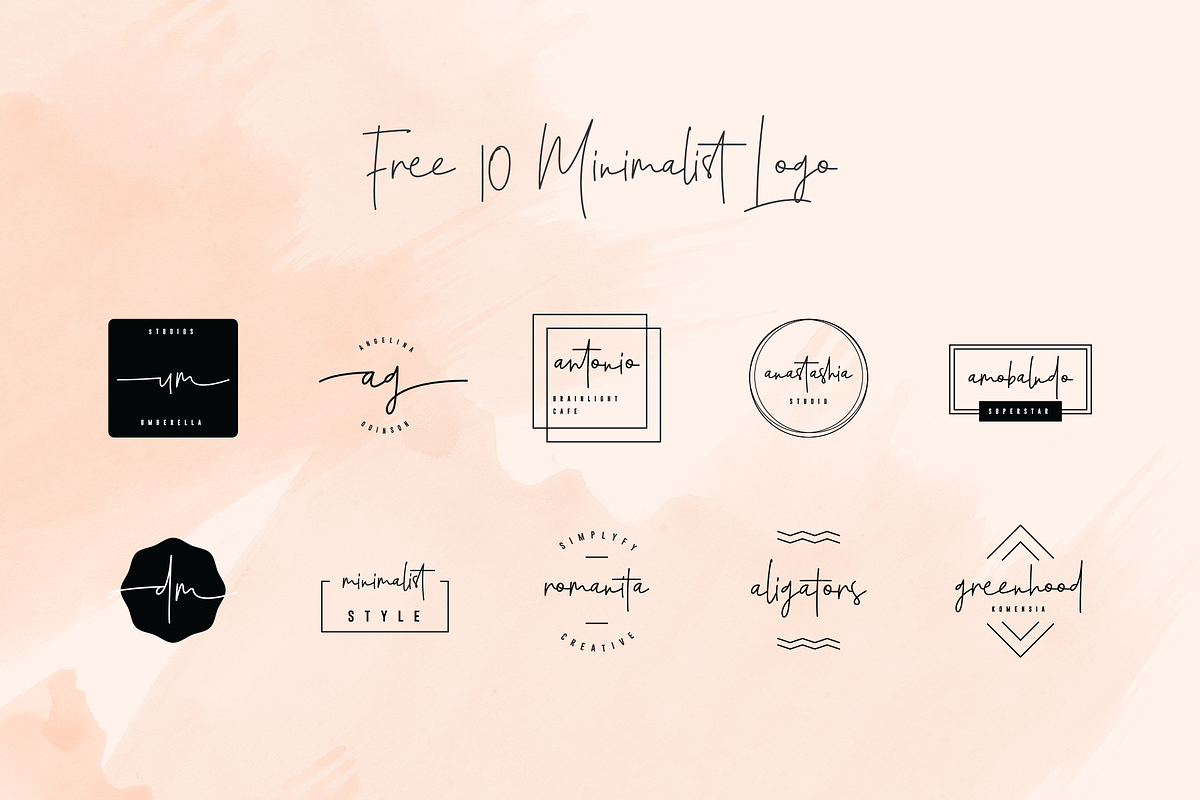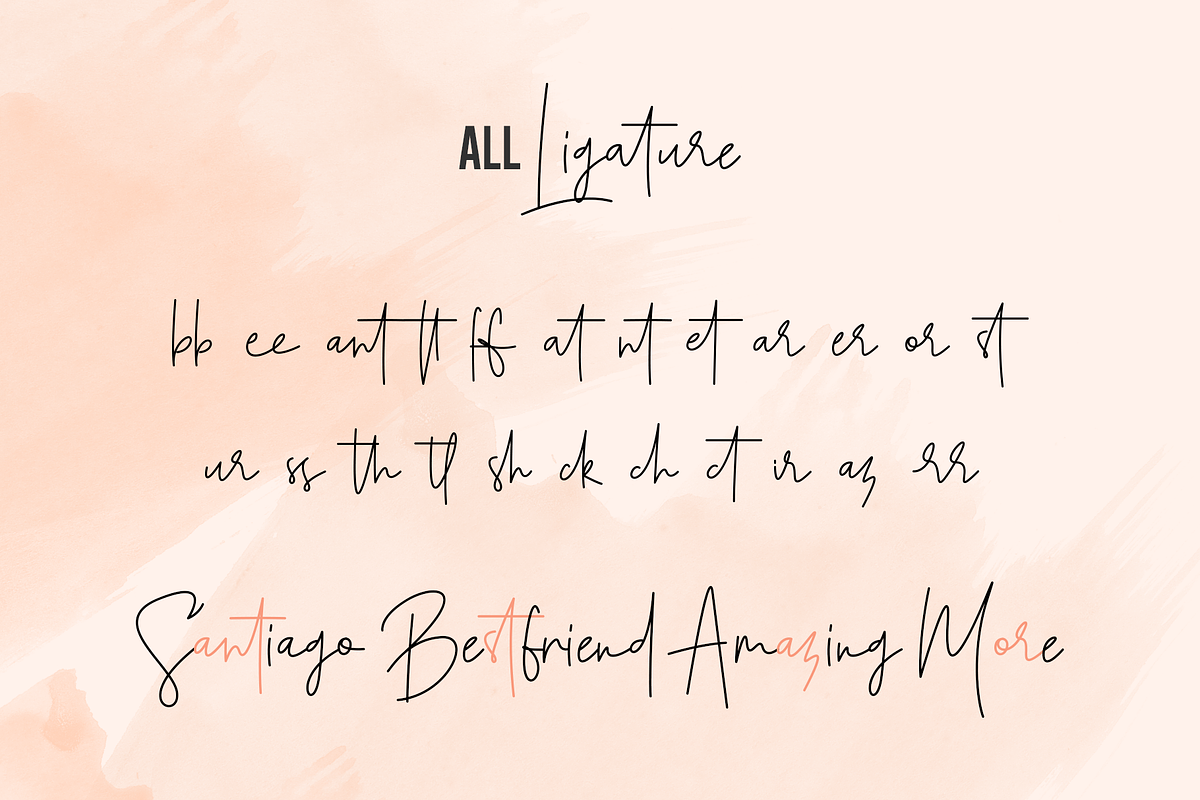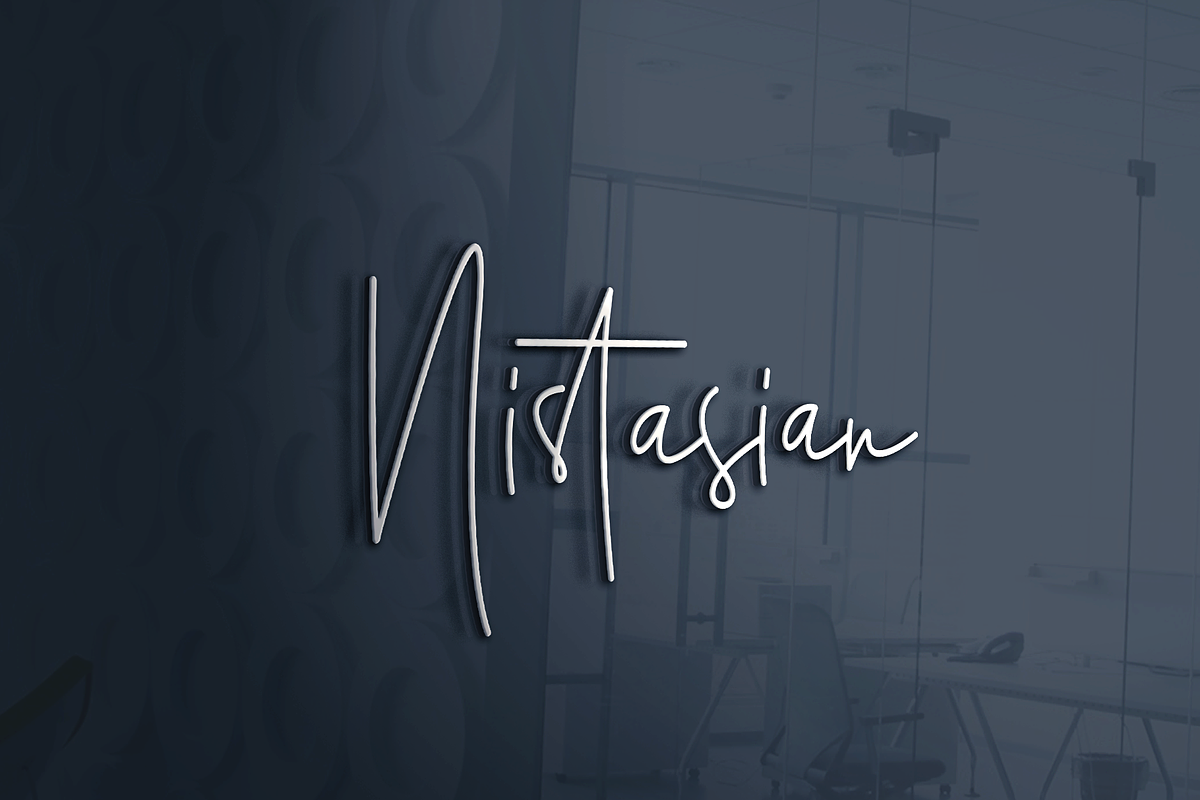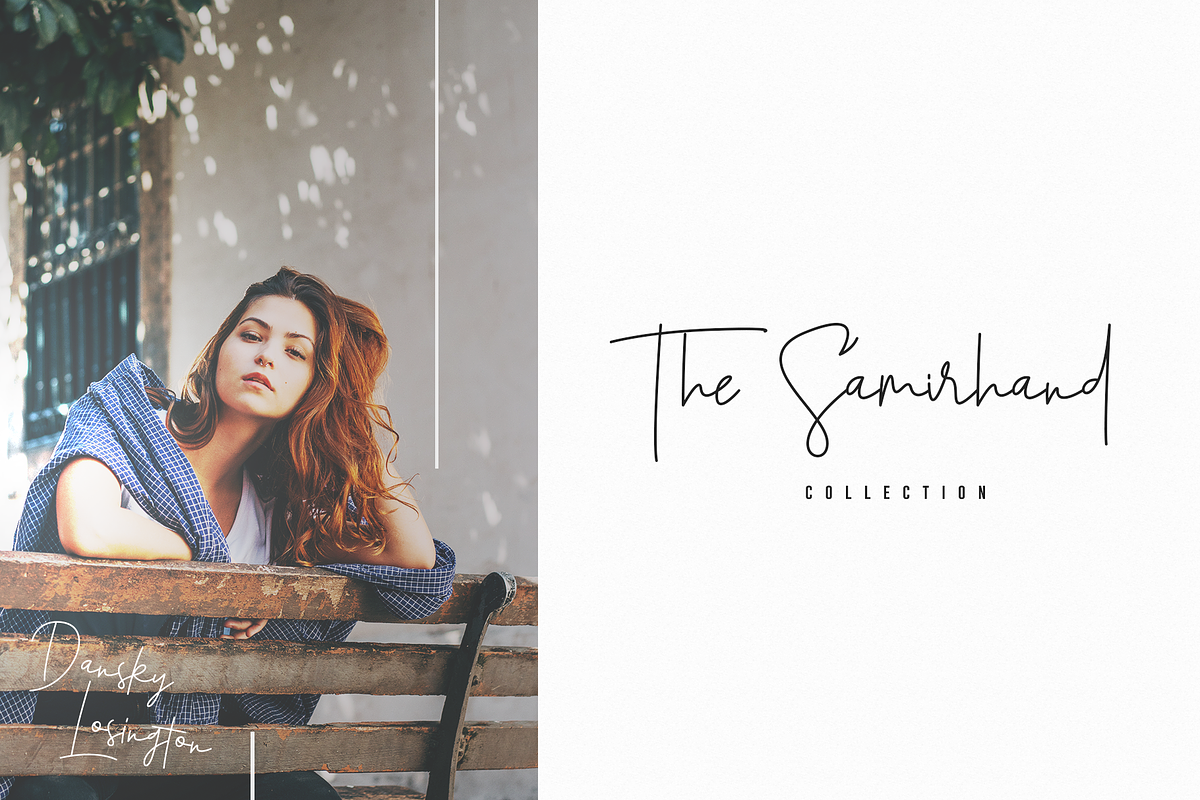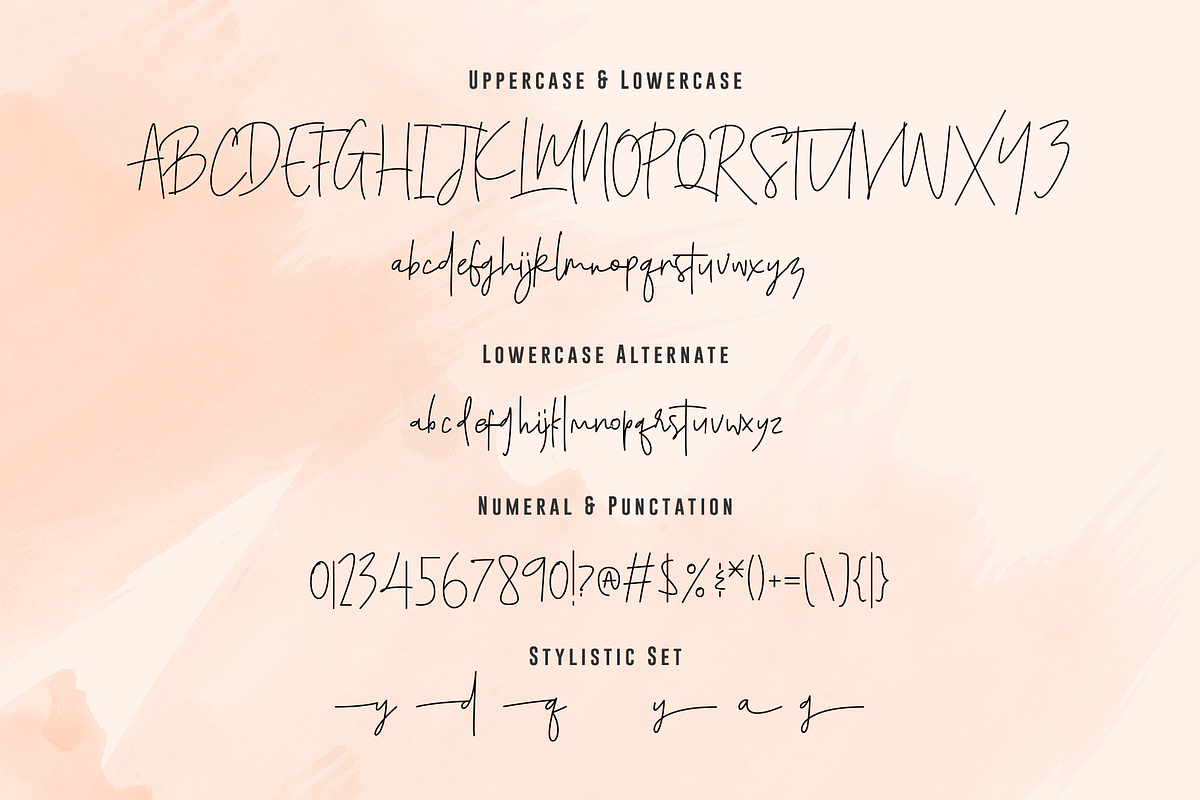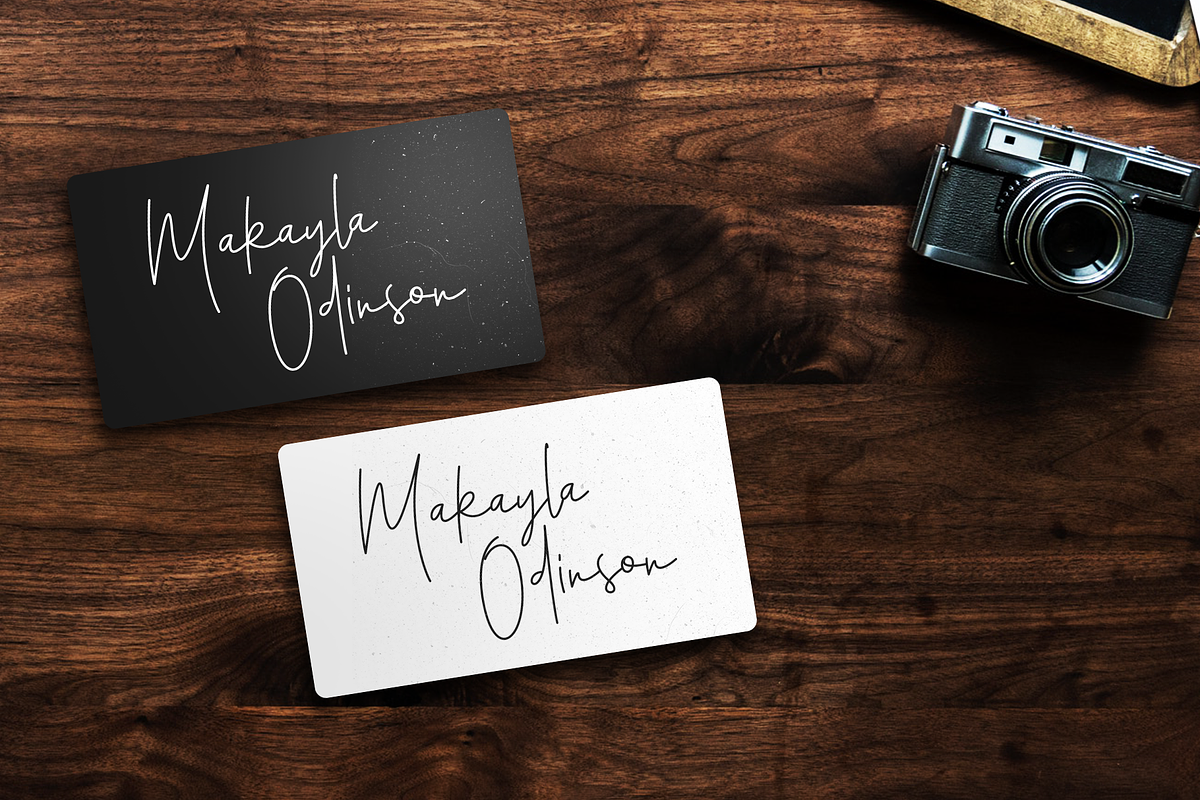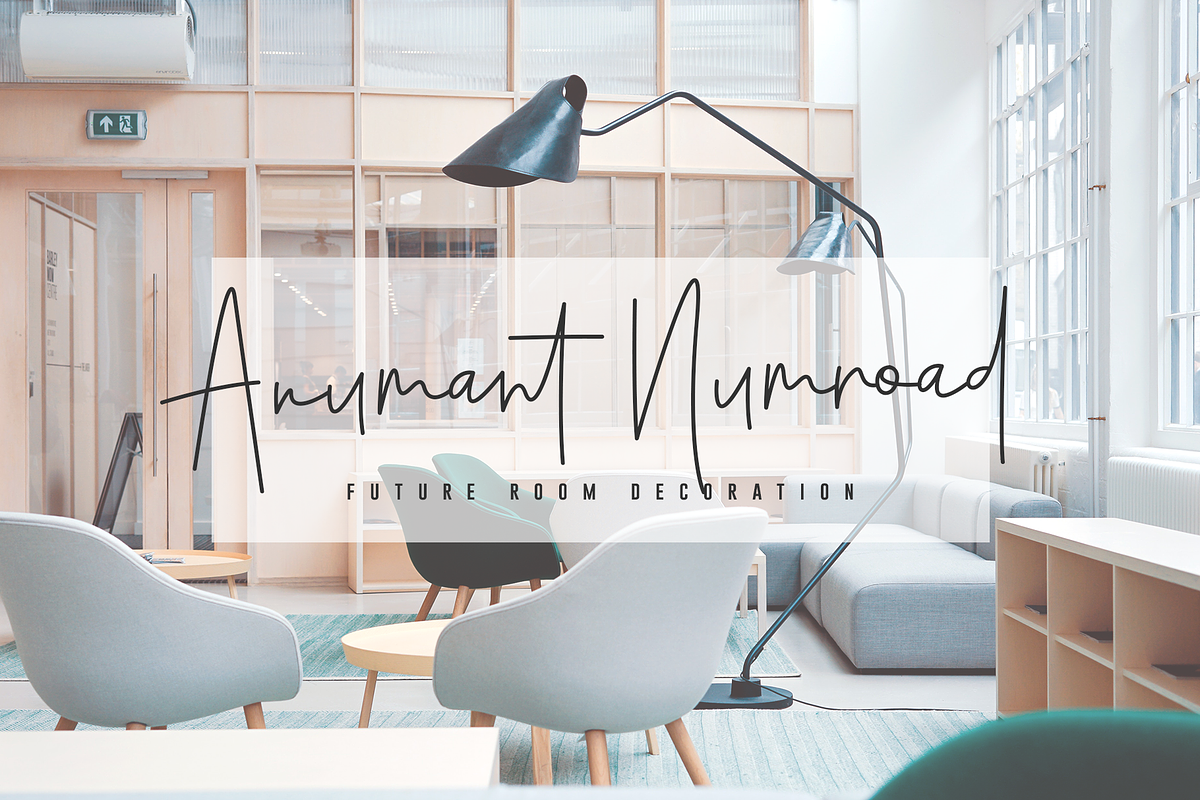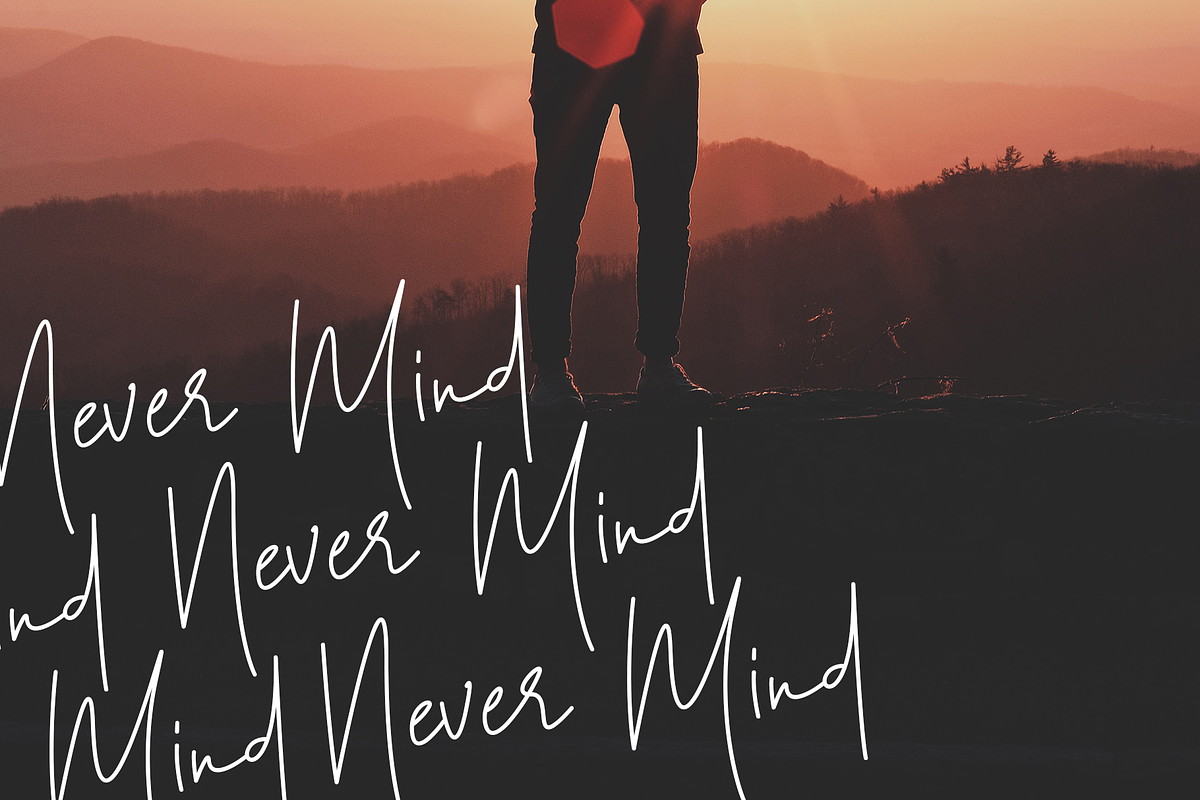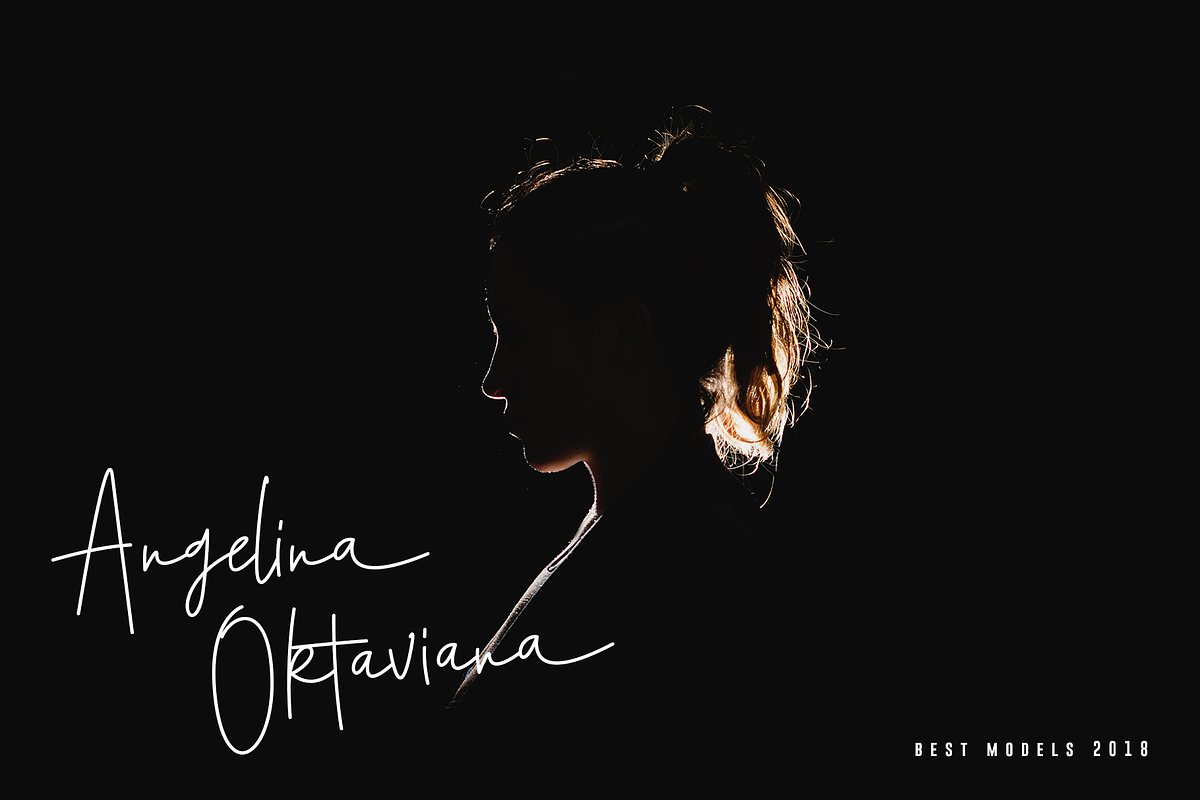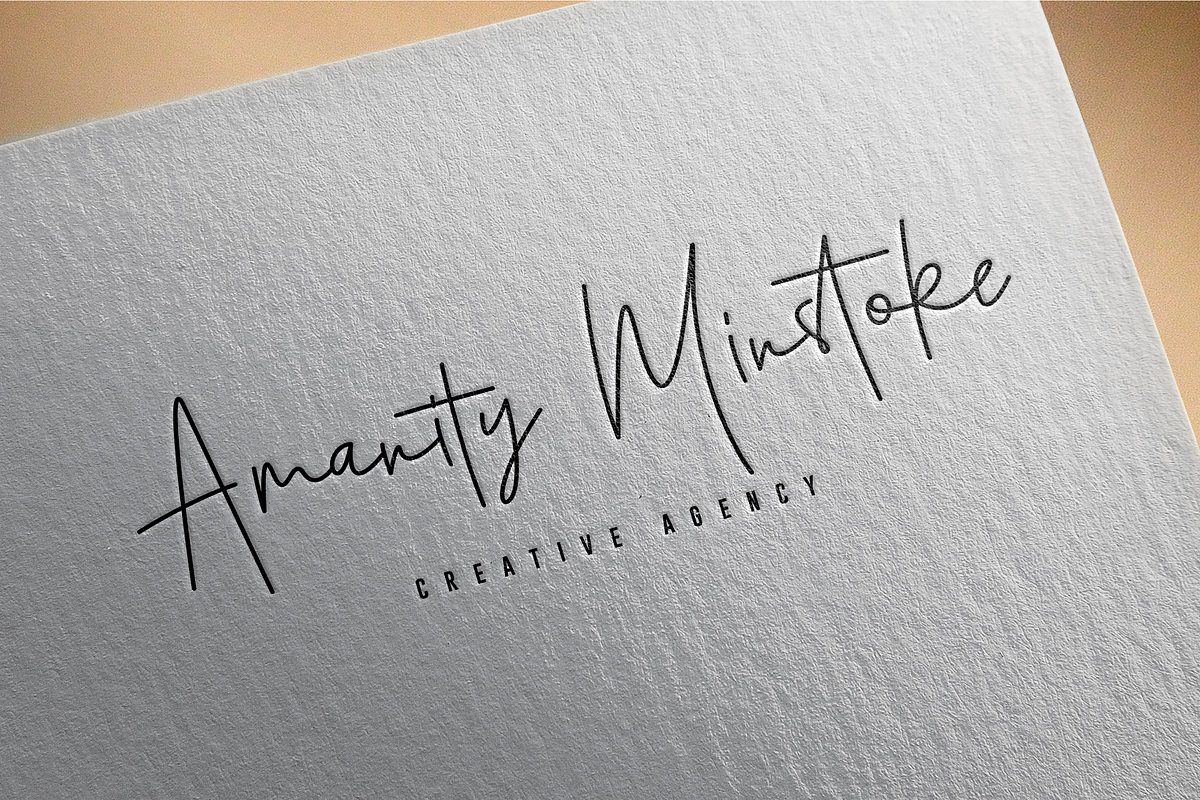
Santiago Pro - Signature / Free Logo
Say hello to the ‘Santigo Pro’ script font - A fashionable and modern handwriting font script with some fun impression :)
Santiago Pro font was created to look as close to a natural handwritten with monoline style, and this include with 23 ligature and some stylishtic set, this make this font perfect for you
It's highly recommended to use it Santiago Pro font is to use for any kind of design such as branding projects, logos, wedding designs, social media posts, advertisements, product packaging, product designs, labels, photography, watermarks, invitation, stationery and any projects.
- The ton of glyphs (include Uppercase, Lowercase, Ligature, Stylistic Set, lowercase Alternate, Numerals & Punctuations)